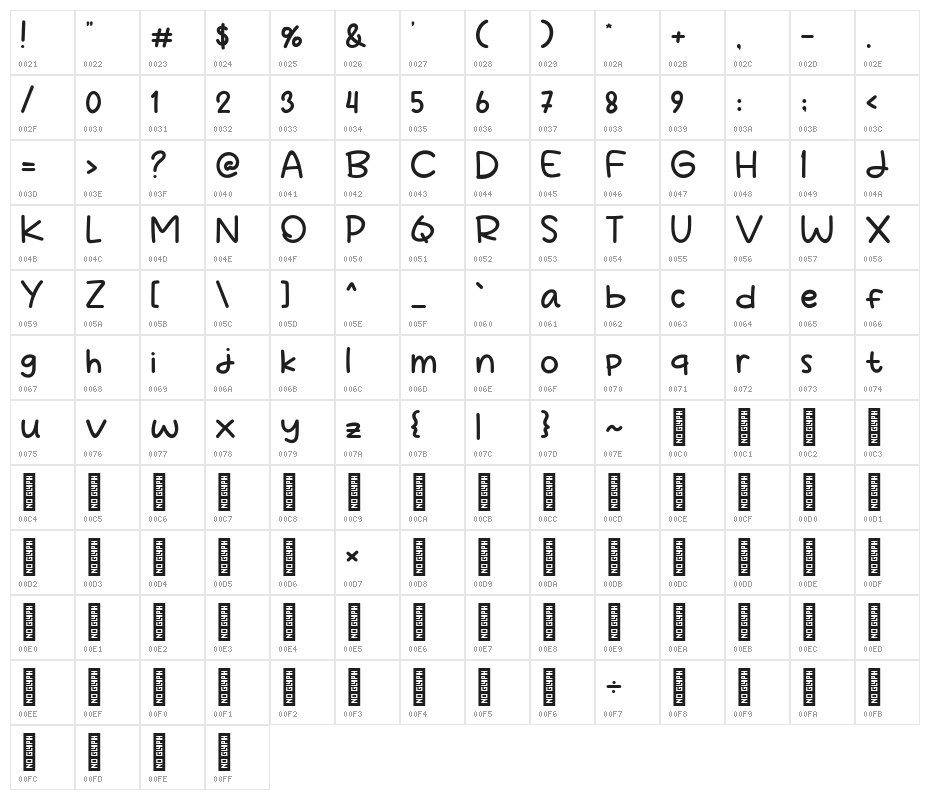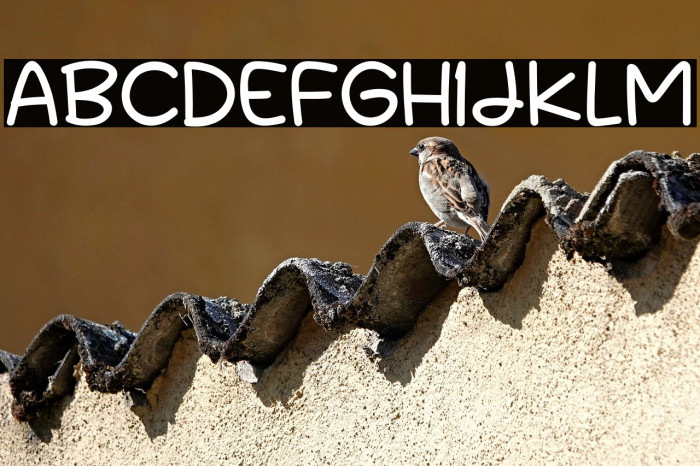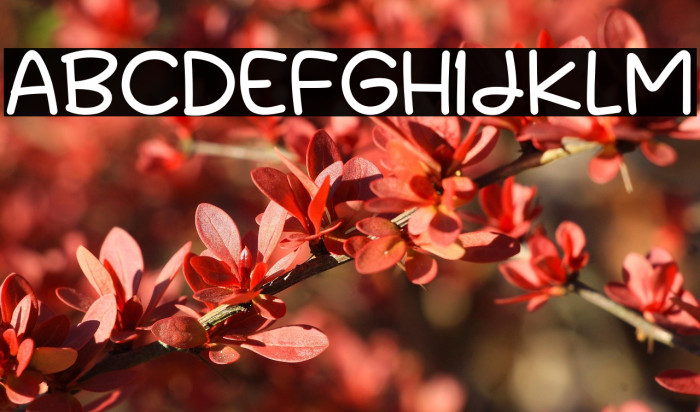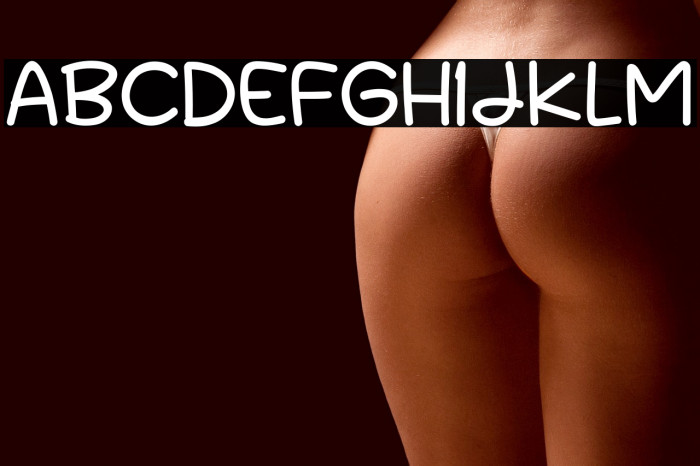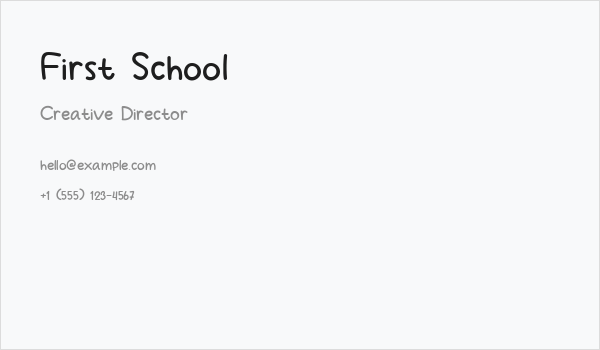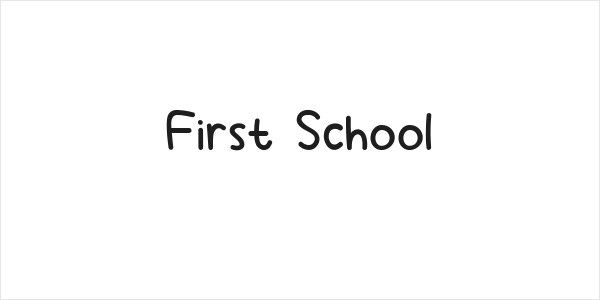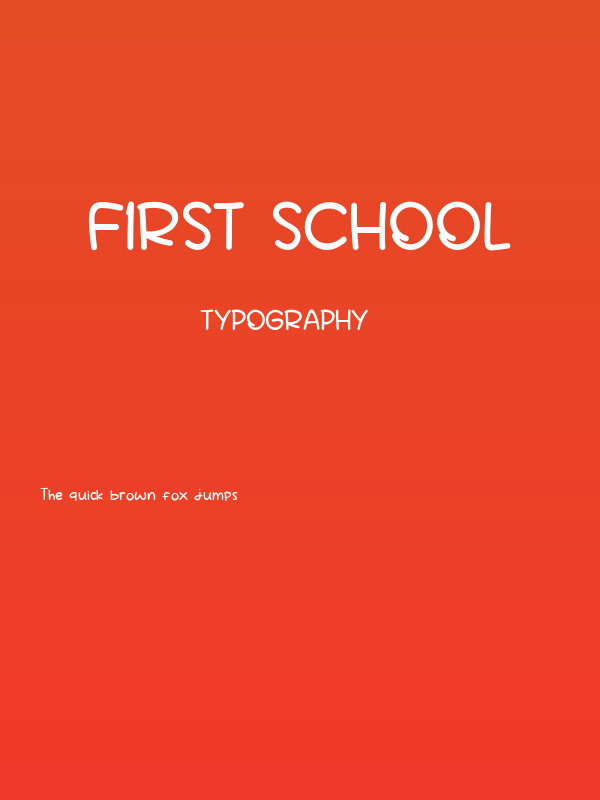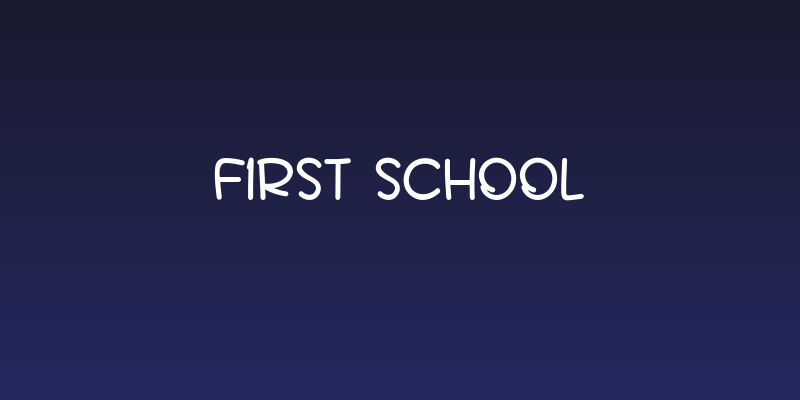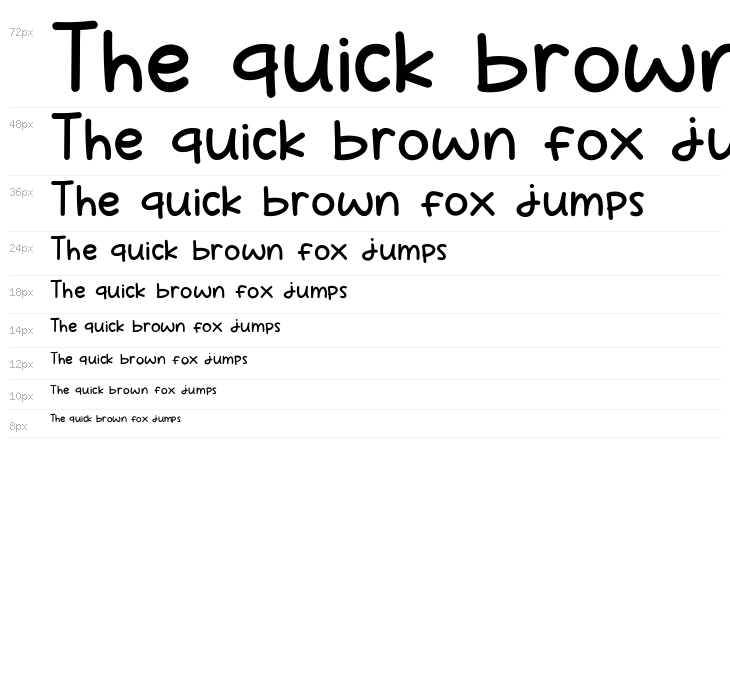
First School Font
First School Description
This playful and rounded font exudes a friendly and approachable vibe, making it ideal for informal and child-friendly designs. The characters are bold and slightly irregular, giving them a hand-drawn appearance that adds a touch of whimsy. The uppercase and lowercase letters maintain a consistent style, with smooth curves and a uniform stroke width. The numbers and special characters are equally well-crafted, ensuring readability and coherence across all text. This font is perfect for projects that require a fun and engaging aesthetic, such as children's books, educational materials, or playful branding.
| Overall Style | Playful |
| Use Case | Headlines, Logos, Educational materials |
| Proposed Projects | Ideal for children's books, educational materials, playful branding, and informal designs. |